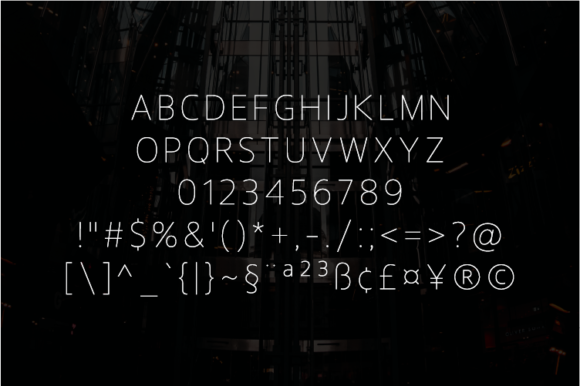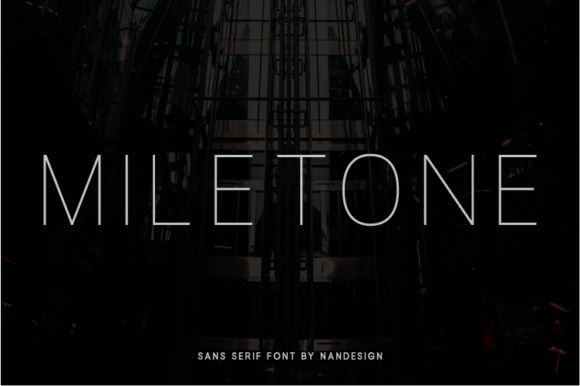
Introduction to Miletone Font
Miletone is a simple and modern sans serif font.
It will look outstanding in any context, whether it’s being used on busy backgrounds or as a standalone headline .
Miletone Font offers exceptional quality and versatility, making it a valuable addition to your design toolkit. Whether you’re creating for personal projects or commercial use, Miletone Font delivers professional results.